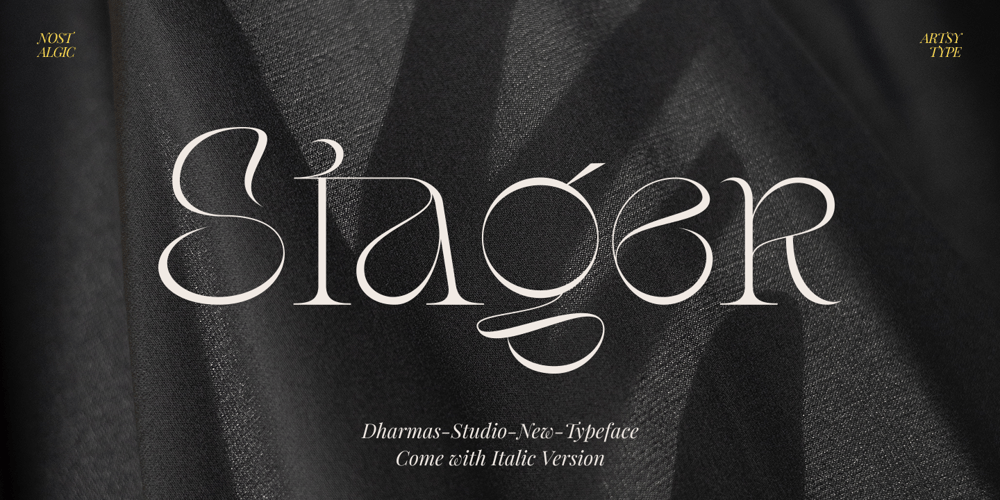
Stager Font Family was designed by Ahmad Jamaludin and published by Ahmad Jamaludin. Stager contains 2 styles and family package options. Fresh artsy and classy serif, so we present to you, Stager!Stager – A stylish serif with an artistic and classy touch so brings us to the nostalgic era. Thin letter anatomy collaborate with unique alternates and beautiful ligature so makes any project seem chic, luxurious, unique, artistic and little retro vibesStager – Come with italic version, so perfectly suitable for creating elegant, simple, retro design such as branding, poster design, books, fashion, social media design, logos, etc.What you get Letters, numbers, punctuation, multilingual support, alternates, and beautiful ligatures Regular and Italic version Come and say hello over on Instagram! https://www.instagram.com/dharmas.studio/Dharmas Studio